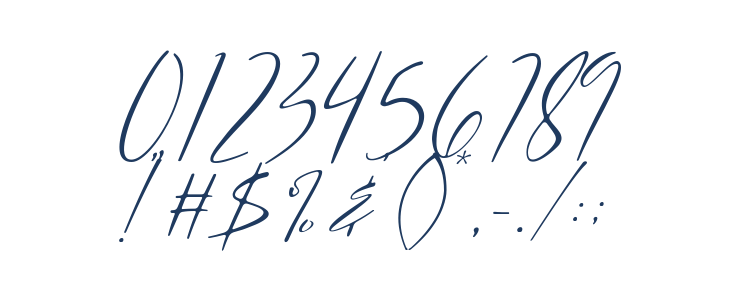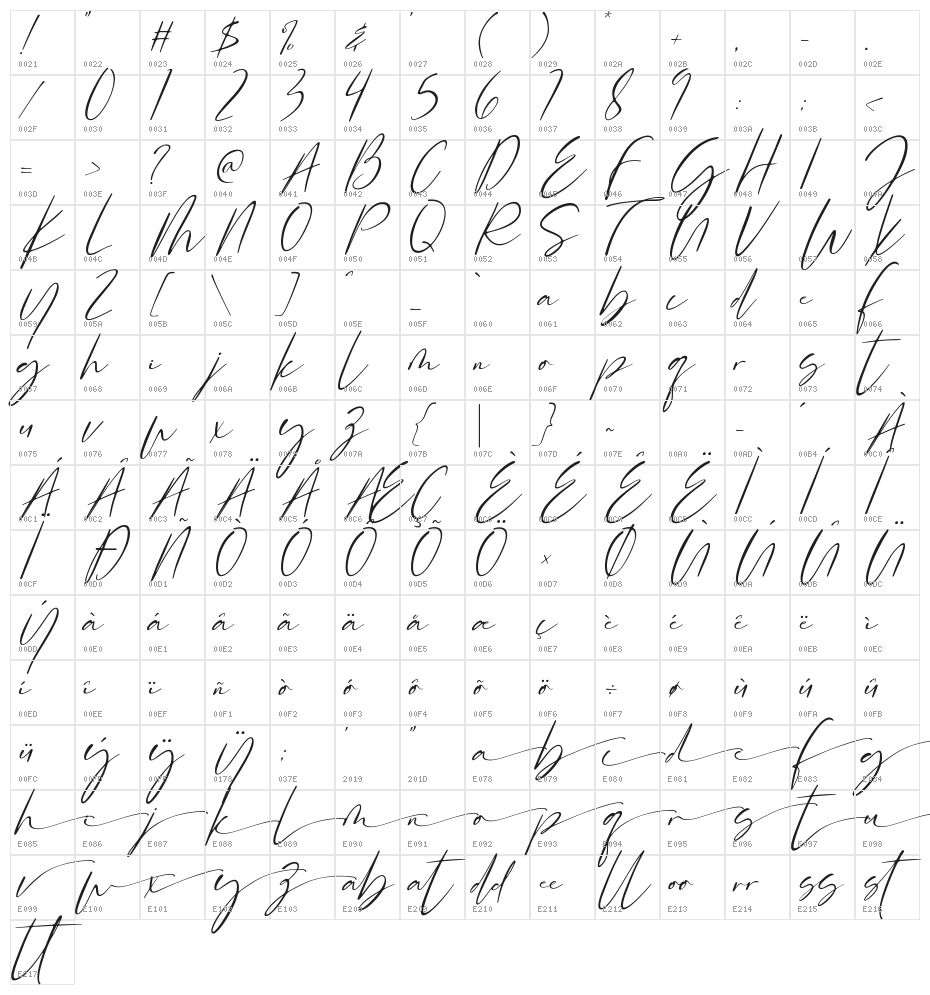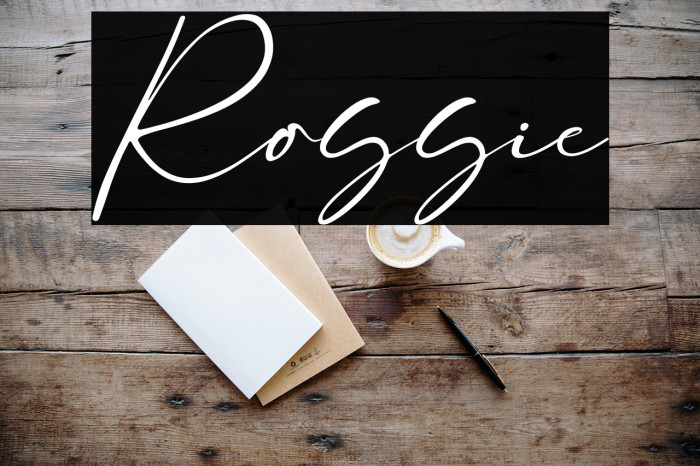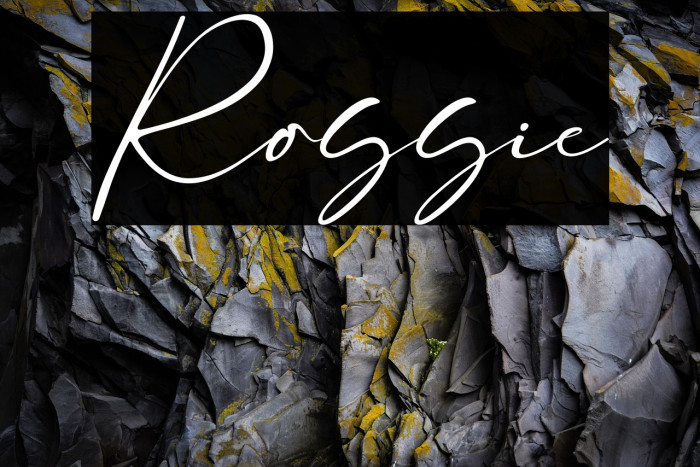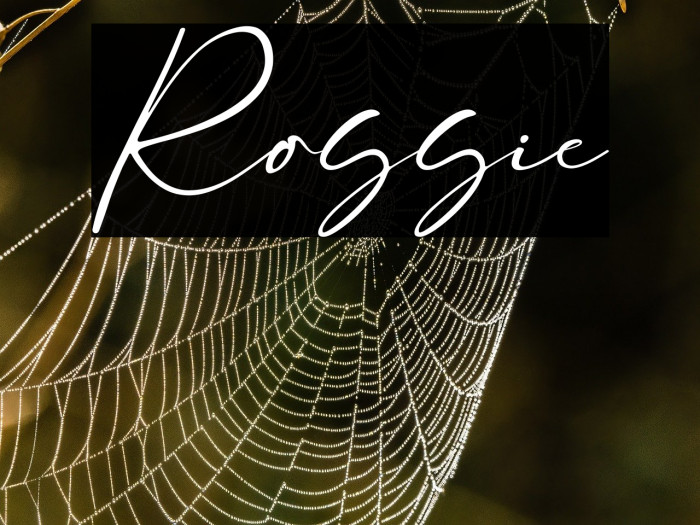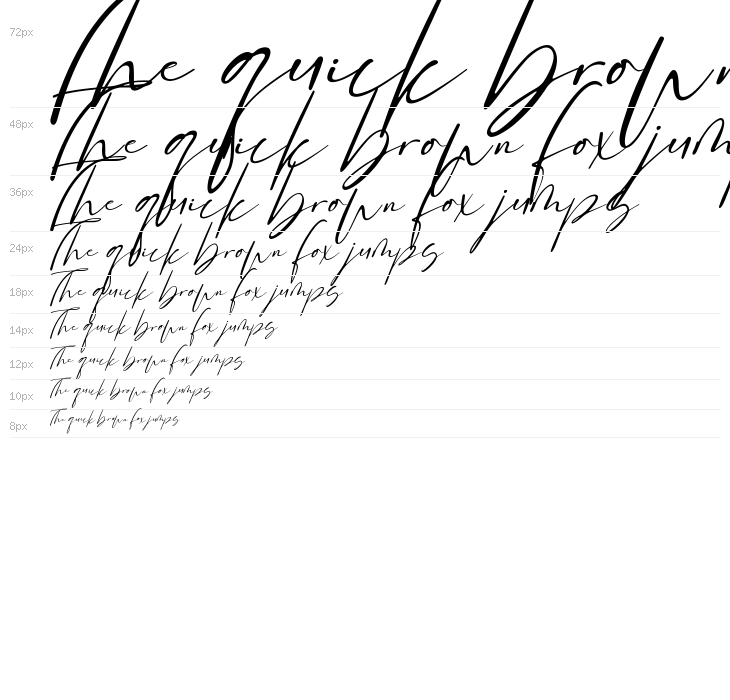
Rossie Font
Rossie Description
This font exudes a dynamic and fluid handwritten style, characterized by its elegant and flowing script. The letters are interconnected, creating a seamless and continuous look that mimics natural handwriting. The strokes vary in thickness, adding a sense of movement and rhythm to the text. This font is both stylish and legible, making it suitable for a variety of creative projects. Its unique flair is evident in the way each character is crafted with attention to detail, offering a personal touch to any design. The numbers and special characters maintain the same fluidity, ensuring consistency across all elements.
Use CaseLogos, Headlines, Invitations
Proposed ProjectsIdeal for wedding invitations, personal branding, greeting cards, and artistic projects.